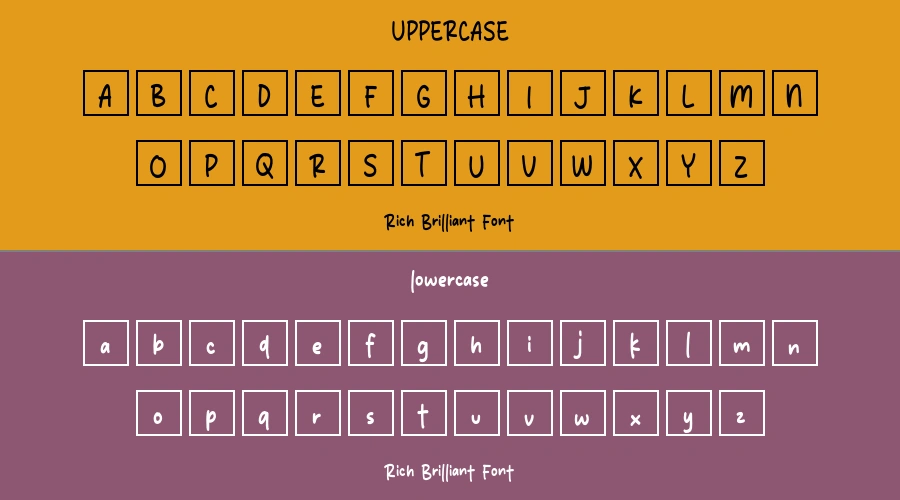
About Rich Brilliant Font
Rich Brilliant Font embodies typographic excellence through its masterful combination of subtle details and visual appeal. Created for presentation decks, this typeface delivers exceptional memorability and system compatibility across all applications. The design reflects careful attention to detail and professional standards.
Advanced capabilities include distinctive rounded apexes and versatile word-end alternates, giving designers creative control. When used in promotional materials, Rich Brilliant Font exhibits remarkable small cap rendering. The harmonious balance between tail length and institutional trust sets this typeface apart.